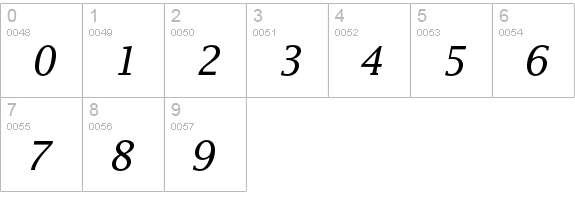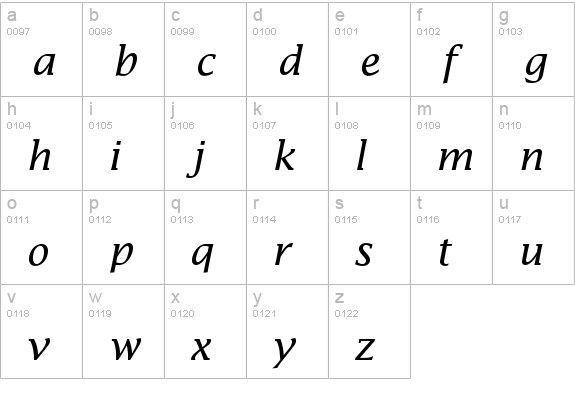
Lucida Std Italic is a distinctive, italic variant in the Lucida typeface family \xE2\x80\x94 well suited to design and typography projects.
Lucida Std Italic is a classic and elegant font style that exudes sophistication and refinement. Its slanted design adds a touch of flair and distinction to any text, making it ideal for conveying a sense of style and professionalism. This versatile font is perfect for a wide range of design projects, from formal invitations to business presentations. What's even better is that Lucida Std Italic is available for free download at FontsMarket.com. You can easily enhance your creative projects with this beautiful font without any cost. Don't miss out on the opportunity to elevate your designs with the timeless charm of Lucida Std Italic. Download it today and add a touch of class to your work!